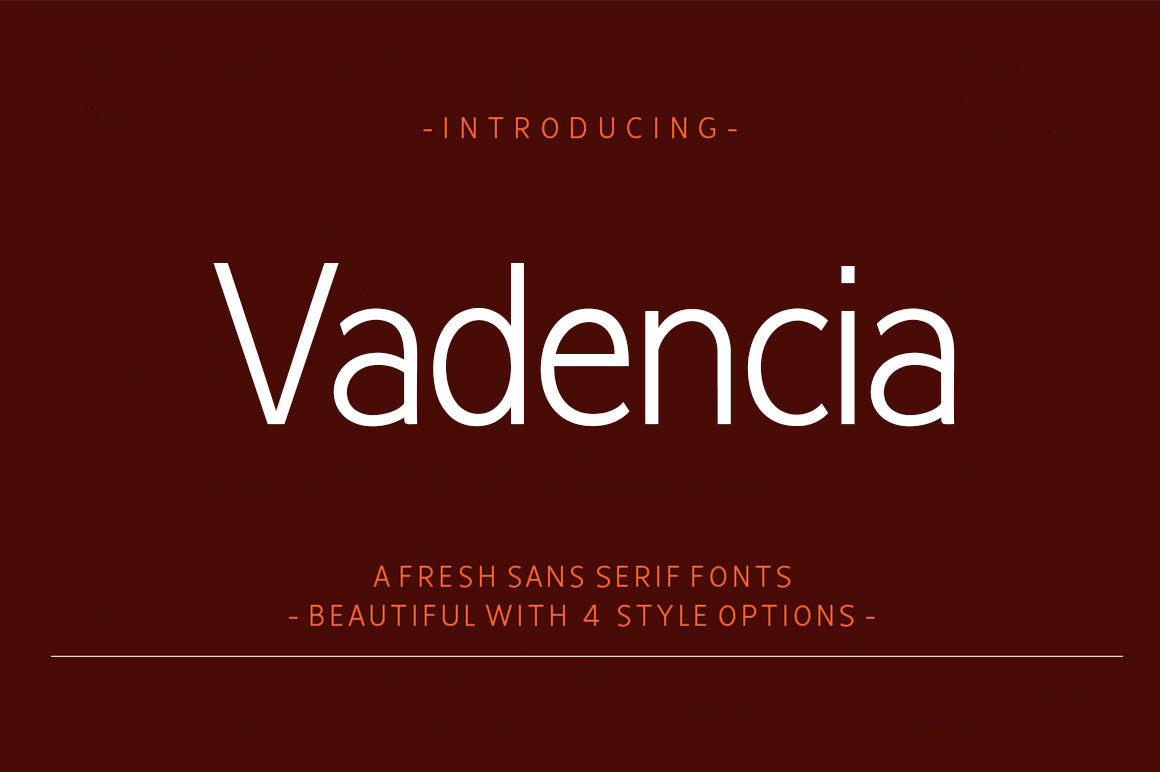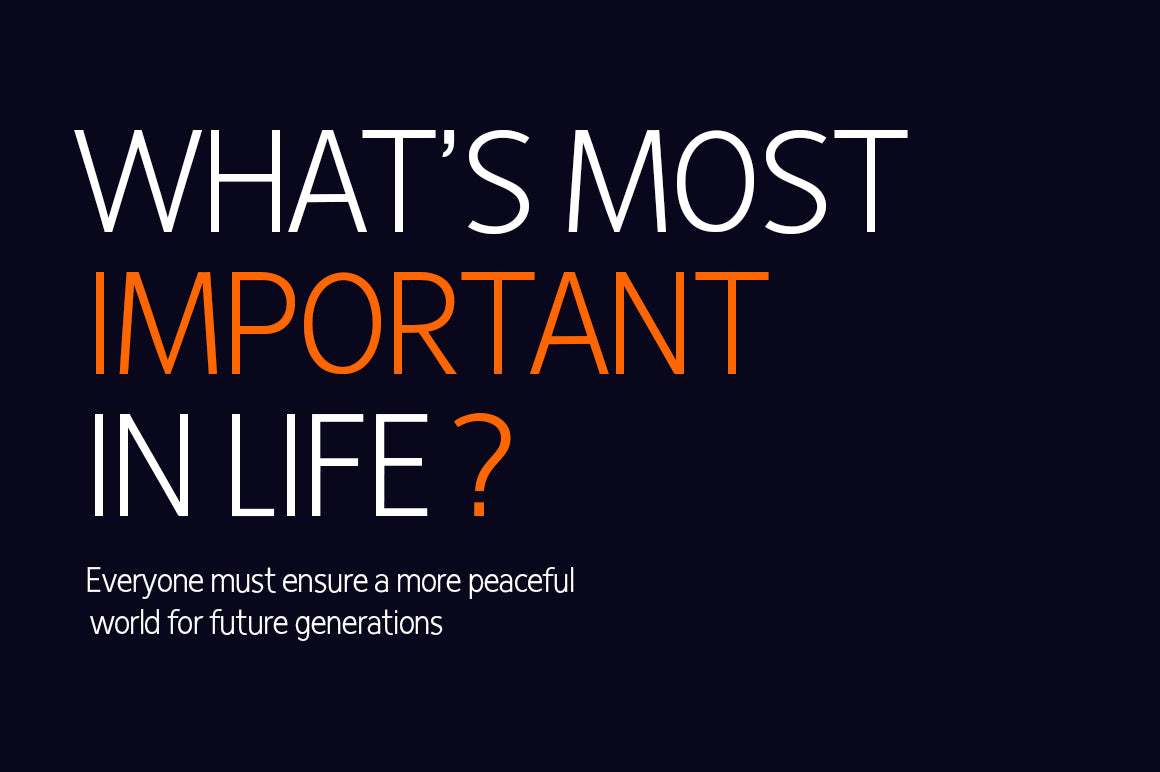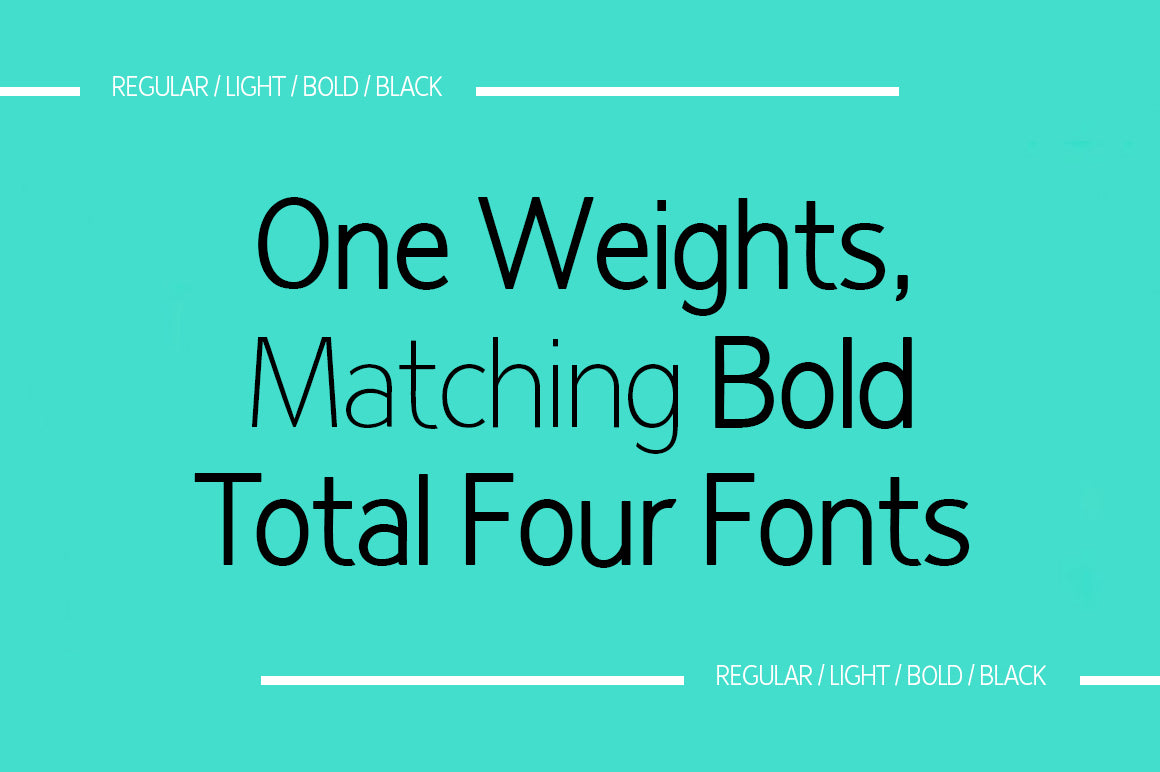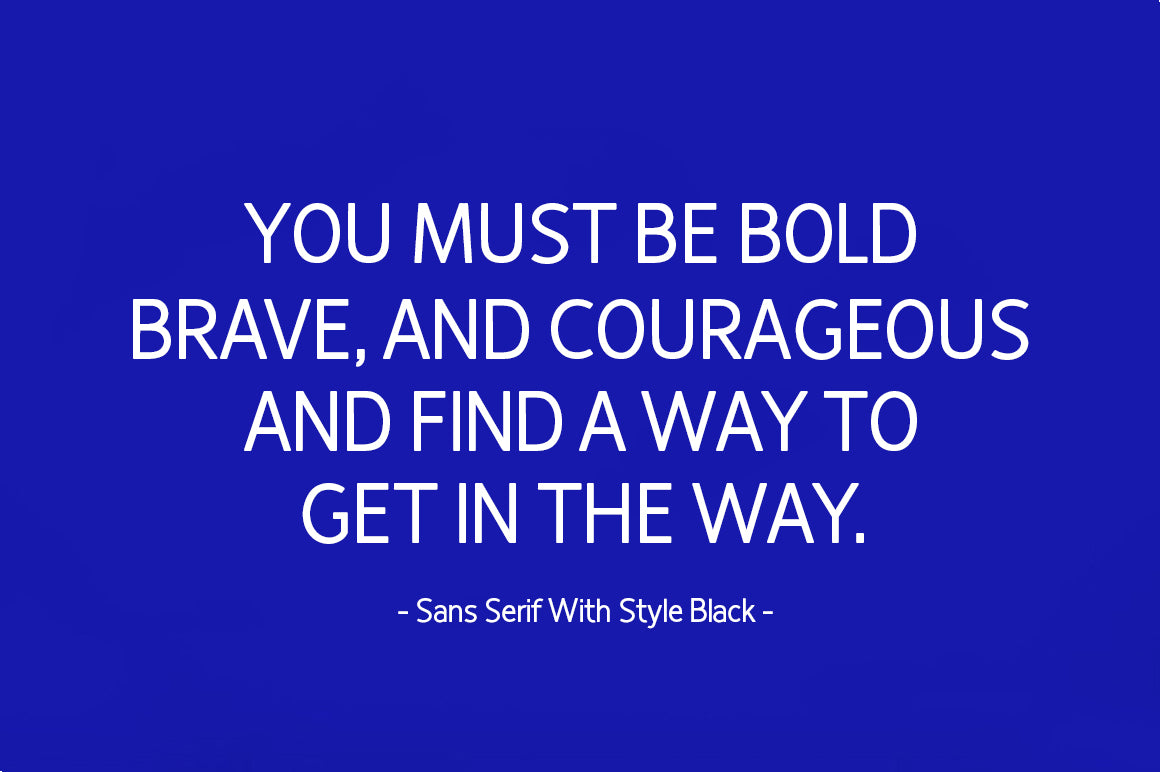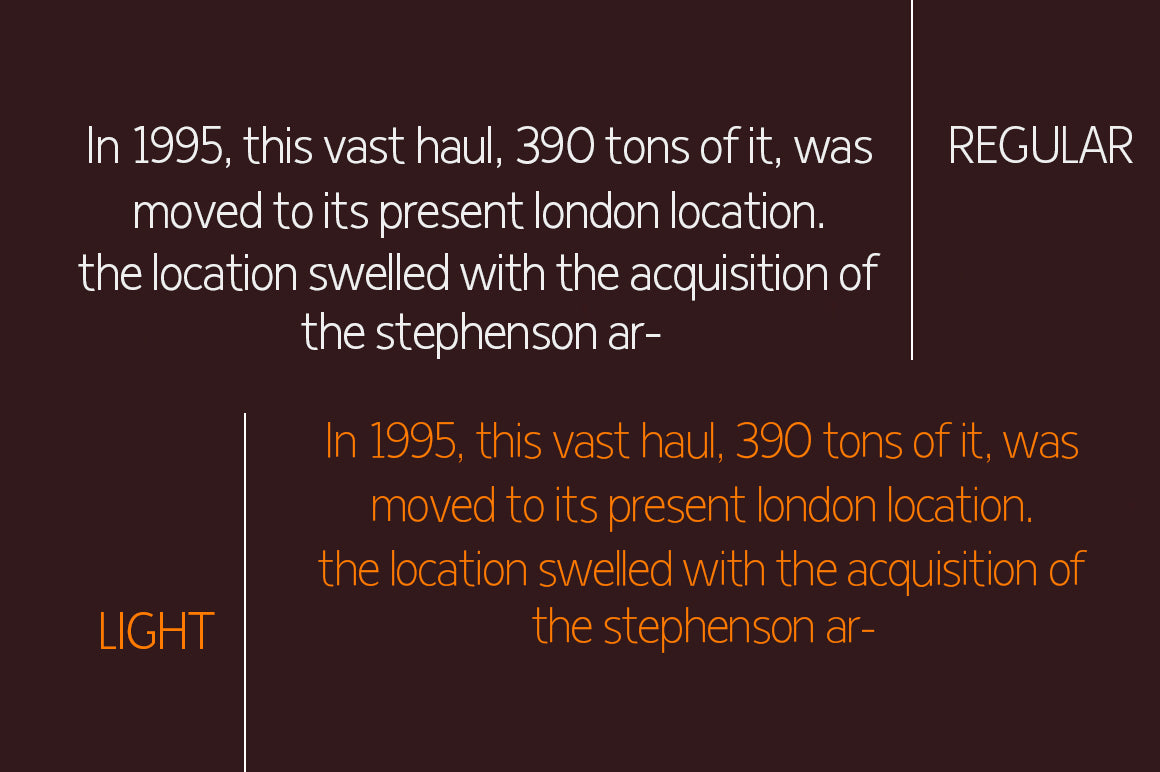
Vadencia Font
Vadencia is a sleek and stylish sans serif font designed for clarity and sophistication. Its smooth curves, balanced proportions, and minimalist aesthetic make it perfect for a wide range of design applications—from branding and editorial layouts to web design and product packaging.
Whether you're crafting striking headlines or clean body text, Vadencia maintains excellent readability while adding a touch of modern elegance. With four distinct weights—Regular, Light, Bold, and Black—you have the flexibility to create dynamic visual hierarchies in your work.
Timeless yet contemporary, Vadencia is a must-have addition to any designer’s toolkit.